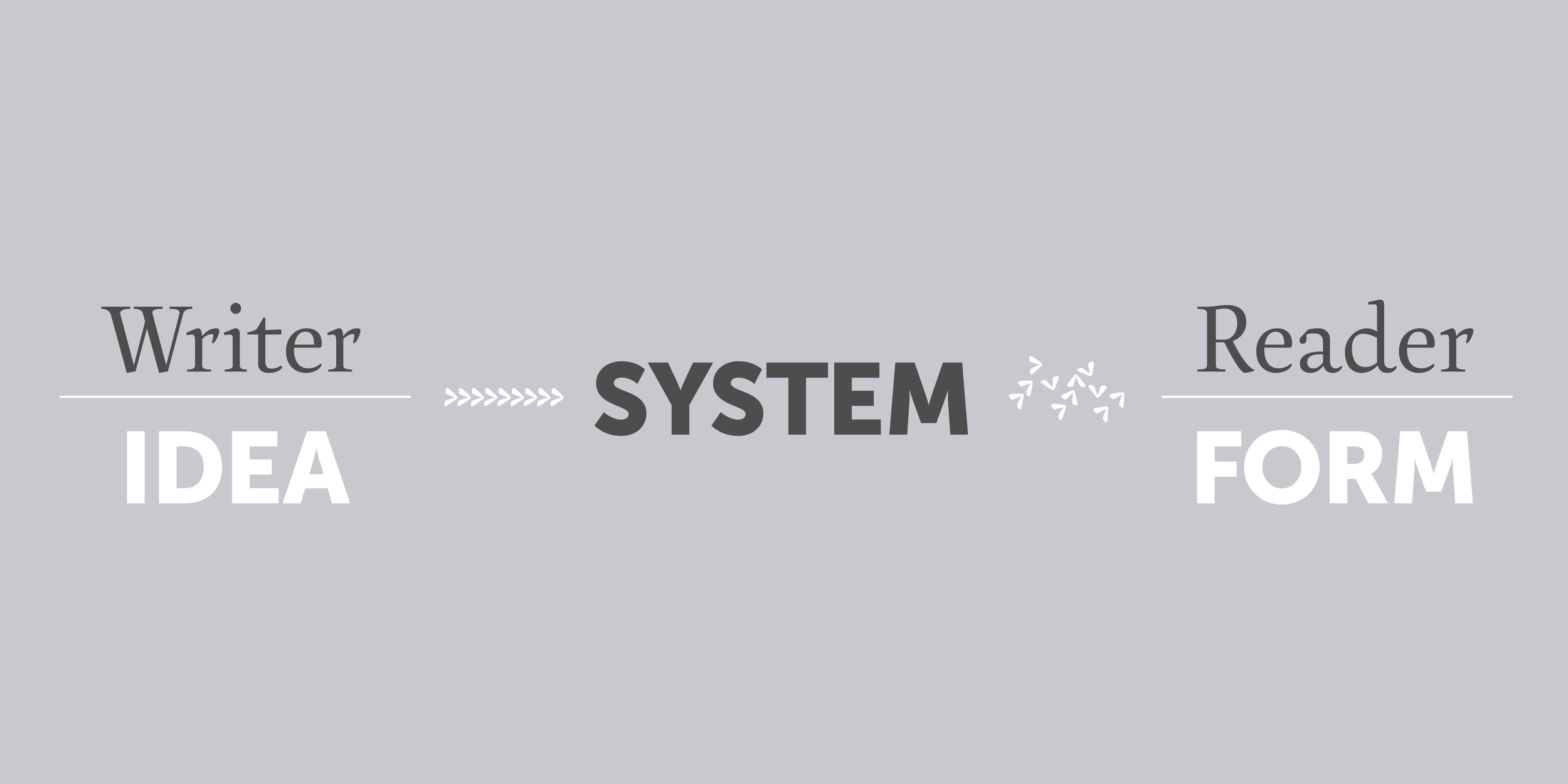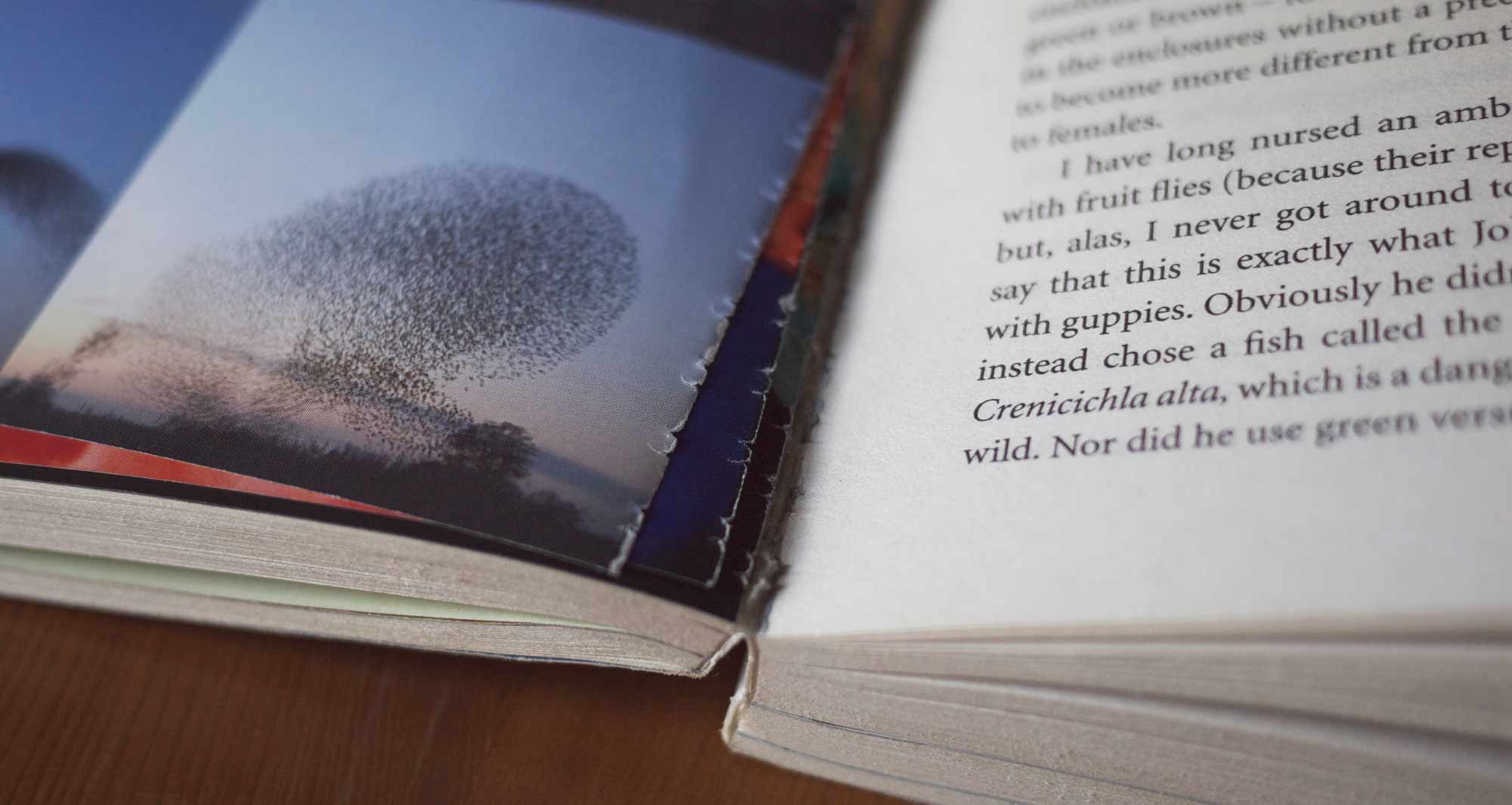
Robin Rendle explores how emotional design impacts reader experience
"Before the very first page of a book has been read, you’ve already analyzed it in countless ways without even noticing. The paper stock, the thickness of the binding, the aroma, the color of the type and even the texture of the cover; the very character of the book is being dissected by the hand and eye at every moment.
In this brief second there is a dialogue between the reader and the object. This conversation is subtle and complex, but for most people it is entirely subconscious. This is because we rarely think about these things  —  we feel them instead.
Before this dialogue can take place however, the ideas of the author must be given shape. By examining the relationship between the form of the book and the information contained within, we can begin to understand how these visual and sensory components work, but it will also teach us how to create long-lasting emotional bonds that we’ll want to keep forever."